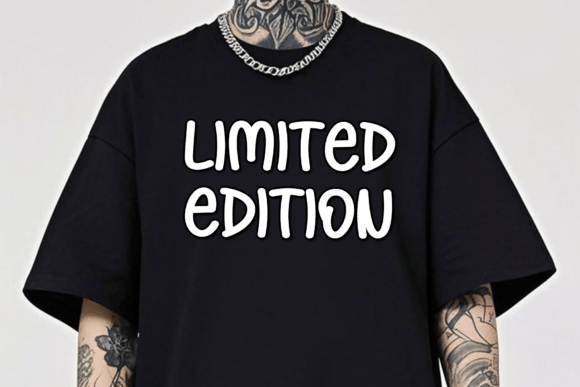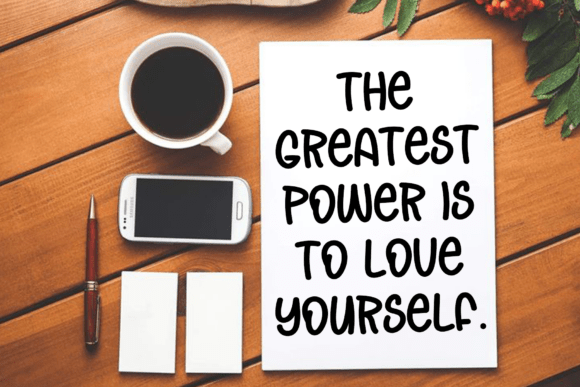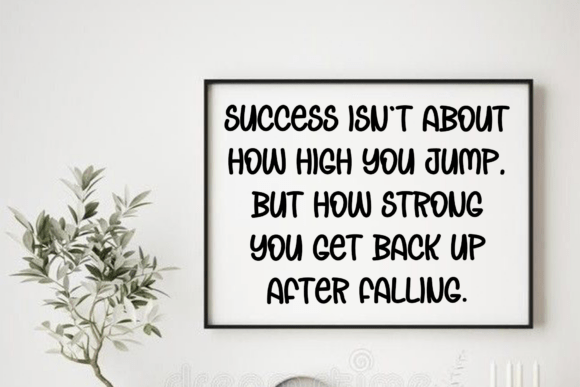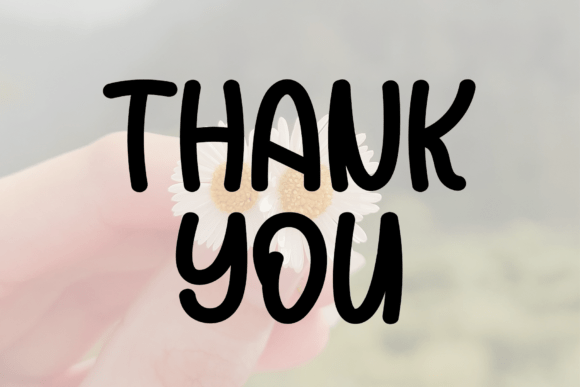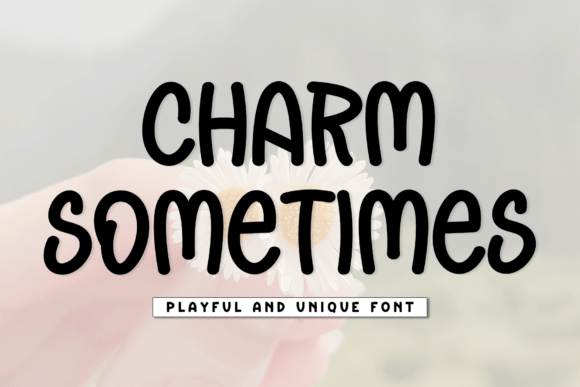
Discover the Charm of Charm Sometimes Font: Elevate Your Designs with a Friendly and Versatile Typeface
In the world of typography, finding the perfect font that balances simplicity with personality can be a daunting task. However, if you’re looking for a typeface that embodies modern elegance with a warm, approachable feel, look no further than Charm Sometimes. This casual and neat display font is designed to bring a friendly vibe to your designs, making it an excellent choice for a wide range of creative projects.
The Essence of Charm Sometimes
Charm Sometimes is more than just a font; it’s a design element that combines clean lines, balanced letterforms, and subtle rounded edges to create a polished finish. This unique blend captures the essence of modern handwritten typography, offering a fresh and contemporary look that’s both eye-catching and easy to read. Whether you’re working on branding, headlines, packaging, or digital content, Charm Sometimes adds a warm and inviting touch that elevates your designs to new heights.
Key Features of Charm Sometimes Font
- Clean Lines and Balanced Letterforms: The font’s structure is built on clean lines and well-balanced letterforms, ensuring clarity and legibility across various design applications.
- Subtle Rounded Edges: The subtle rounding of edges gives Charm Sometimes its friendly and approachable vibe, making it perfect for designs that require a personal touch.
- Versatile Style: With its versatile style, Charm Sometimes can be used in a variety of design contexts, from digital interfaces to print materials, offering flexibility and consistency across platforms.
- Polished Finish: The font’s polished finish adds a level of sophistication, making it suitable for high-end branding and premium content.
Applications of Charm Sometimes
Charm Sometimes is incredibly versatile, making it an excellent addition to any designer’s toolkit. Here are some of the key areas where this font truly shines:
- Branding: Use Charm Sometimes to create memorable logos, business cards, and brand guidelines that reflect a modern yet approachable identity.
- Headlines and Titles: Its clean and elegant structure makes it perfect for headlines, titles, and subtitles in magazines, websites, and advertising materials.
- Packaging: Add a touch of elegance and friendliness to your product packaging with Charm Sometimes, making your products stand out on store shelves.
- Digital Content: Enhance your digital platforms, such as blogs, social media posts, and mobile apps, with a font that offers both readability and charm.
Why Choose Charm Sometimes?
In a sea of fonts, Charm Sometimes stands out for its unique combination of modern simplicity and warm personality. Here are a few reasons why designers and crafters are gravitating towards this typeface:
- Unique Aesthetic: Charm Sometimes offers a fresh aesthetic that’s not too formal or too casual, making it perfect for brands and designers looking for a distinctive look.
- Readability: Despite its elegant and polished finish, Charm Sometimes remains highly readable, even at smaller sizes, ensuring your message is communicated effectively.
- Emotional Connection: The font’s friendly vibe helps create an emotional connection with your audience, making your designs more relatable and engaging.
Charm Sometimes is more than just a font; it’s a design solution that brings together the best of modern typography with a warm, inviting personality. Its versatility, readability, and unique aesthetic make it an excellent choice for designers and crafters looking to elevate their projects. Whether you’re aiming to create a strong brand identity, craft compelling headlines, or simply add a touch of elegance to your digital content, Charm Sometimes is the perfect companion for your creative journey.